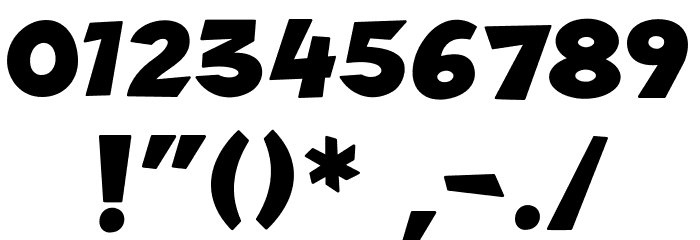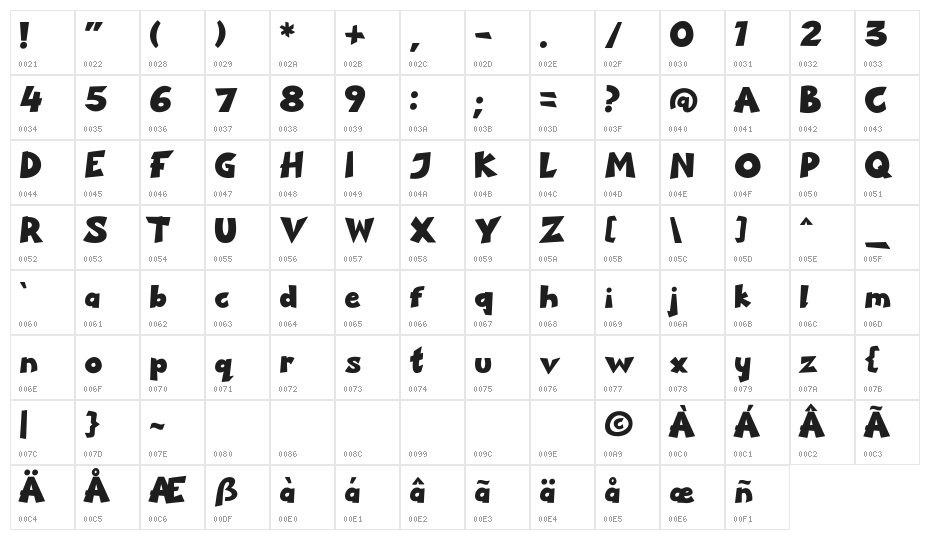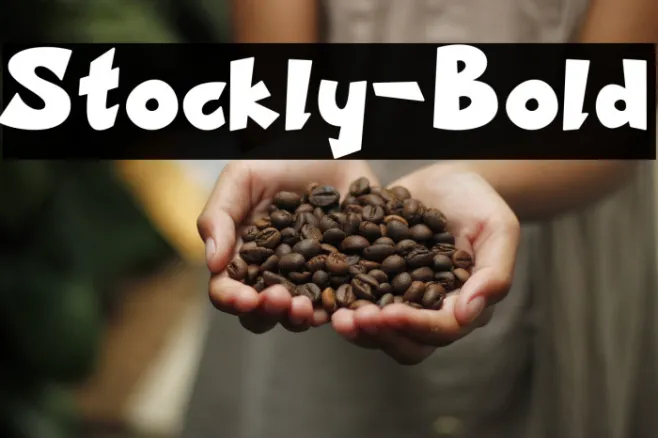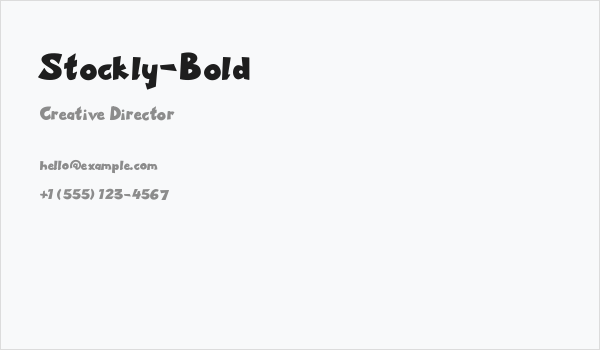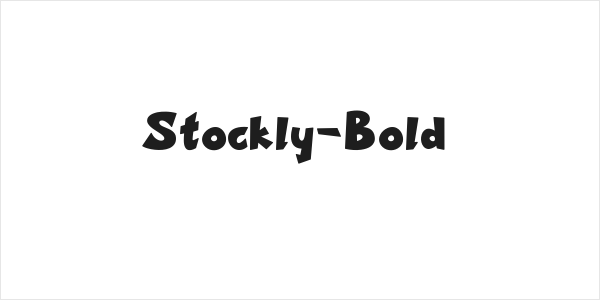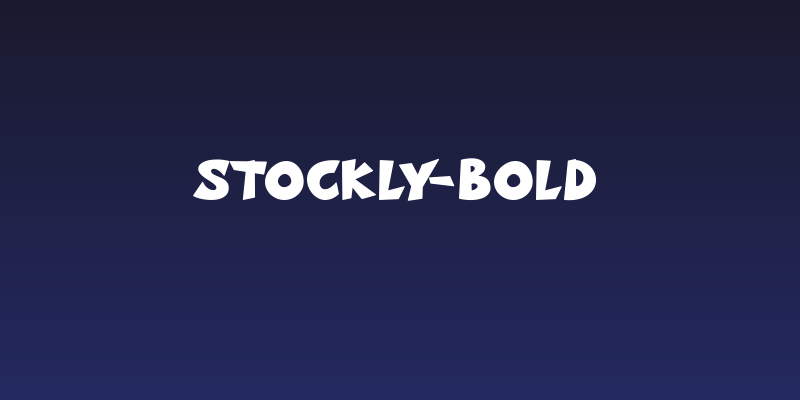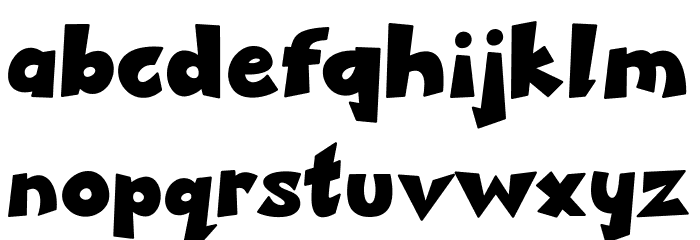
Stockly-Bold Font
Stockly-Bold Description
This font features bold, dynamic characters with a playful and energetic style. The letters have a slightly irregular, hand-drawn appearance, giving them a unique and informal look. The strokes are thick and consistent, contributing to a strong visual impact. The uppercase and lowercase letters maintain a cohesive style, with rounded edges and a slight tilt, adding to the whimsical feel. Numbers and special characters are equally bold, ensuring readability and consistency across different uses.
| Overall Style | Playful, Energetic, Informal |
| Proposed Projects | Ideal for children's books, comic strips, playful branding, and eye-catching posters. |